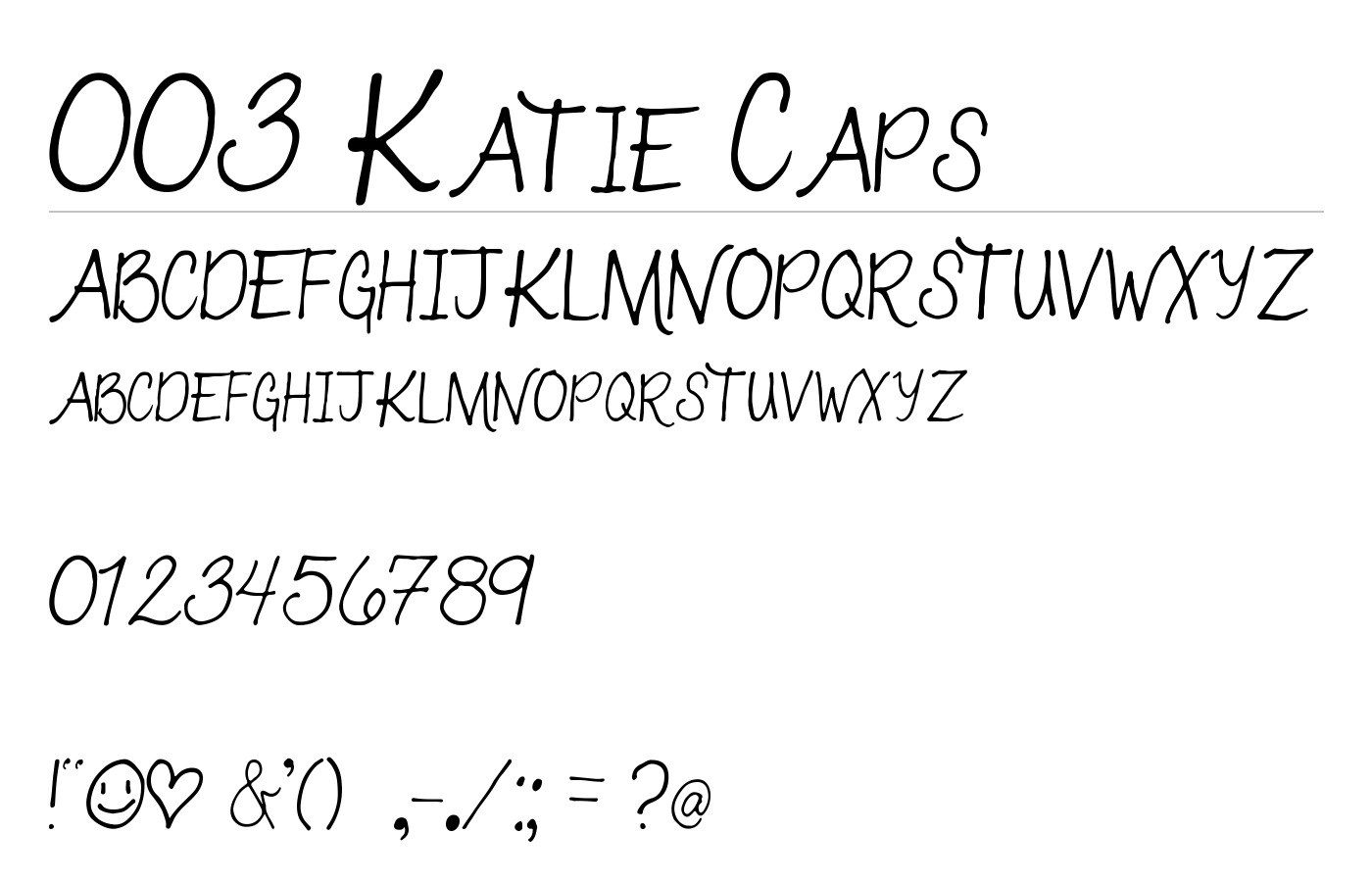
003 Katie Caps is a playful, hand-drawn sans serif font with a light weight and tall, narrow letterforms that create an energetic and casual feel. Its slightly uneven strokes and quirky character shapes give it a friendly, informal personality perfect for creative projects, invitations, and branding that aims to convey warmth and approachability. This font works well in headlines and display text where a personal, handwritten touch is desired.
003 Katie Caps Font
About 003 Katie Caps Font